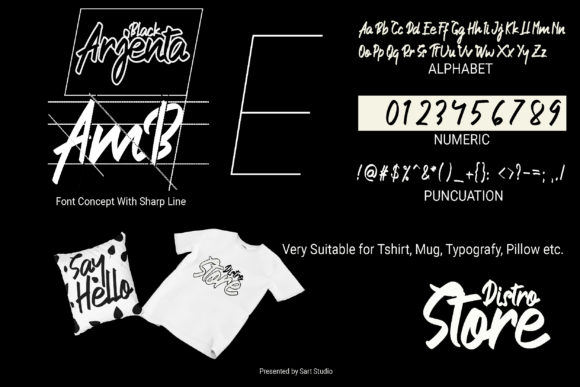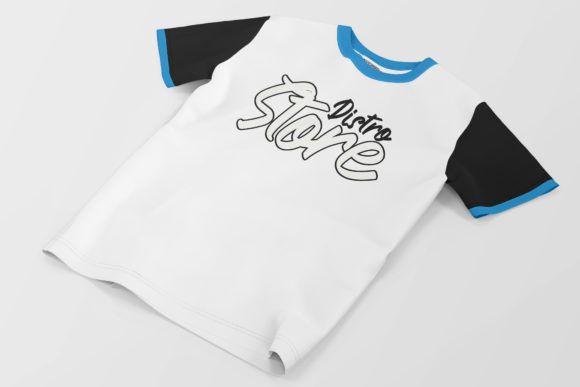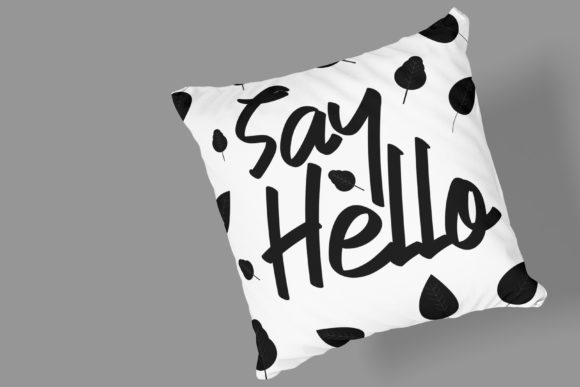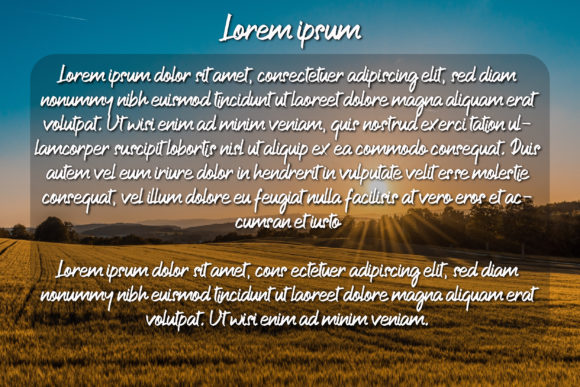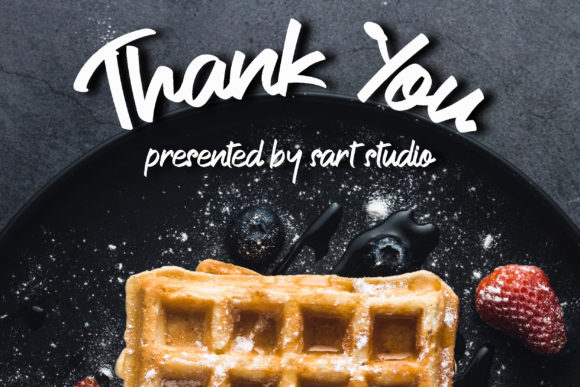
Unleashing the Perfect Handwritten Font: Arjenta Black
Have you ever found yourself in a creative rut, staring at a blank page with a blank mind? You’re not alone. Sometimes all it takes is the right tool to spark that creative fire within. For designers, the perfect font can be the difference between a mediocre design and a masterpiece. Enter the Arjenta Black Font, a beautifully crafted handwritten font designed to bring a touch of warmth and personality to your projects.
This charming font is perfect for designers who want to add a human touch to their work without sacrificing readability. With its casual, down-to-earth feel, the Arjenta Black Font is incredibly versatile and can be used in a variety of contexts, from busy backgrounds to standalone headlines. Whether you’re working on a branding project or a social media campaign, this font is sure to make your design stand out.
- Unique Characteristics: Arjenta Black features a modern, elegant design with a strong, bold aesthetic, making it ideal for use in titles, headings, and other display text.
Arjenta Black Font Review
Overall, I think Arjenta Black is a solid choice for your next project. Here’s what I like about it:
- ✨ Elegant and sophisticated design – it’s perfect for luxury brands or high-end products.
- ✨ Strong contrast between the black and white letters, making it easy to read even in small sizes.
- ✨ Versatile – it works well for both headings and body text.
- ⚠️ Limited expressiveness – the font can come across as too formal or even boring for some projects.
- ⚠️ Not suitable for display-heavy designs – the font is best used in small quantities, as it can get overwhelming if used extensively.
Overall, I think Arjenta Black is a great choice for projects that require a touch of elegance and sophistication. While it may not be the most exciting font out there, it gets the job done and looks great doing it. Just be mindful of its limitations and use it judiciously to get the best results.
For best results, use Arjenta Black Font for headings and titles. It’s also ideal for creating a modern and sleek look in digital designs.
Exploring Arjenta Black Font in Creative Projects
Majestic Luxury Magazine Cover
A high-end lifestyle magazine cover that exudes sophistication and elegance. The Arjenta Black Font will be used as the primary font for the magazine title.